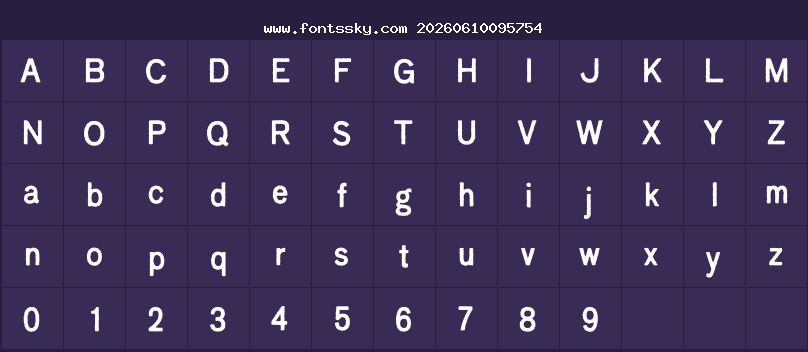
• Font Name: 寒蝉活黑体_復 ConBold
• Font ID: 1.000;UKWN;ChillHuoGothic_F_ConBold
• Full Font Name: 寒蝉活黑体_復 ConBold
• Version: Version 1.000;Glyphs 3.1.1 (3135)
• PostScript Name: ChillHuoGothic_F_ConBold
• Character Count: 19045
• Designer: Warren2060
• Manufacturer: ChillType
• Description: 基于源石黑体(GenSekiGothicJP)& ShipporiAntique的改变。
About 寒蝉活黑体_復 ConBold.otf
寒蝉活黑体_復 ConBold.otf is a modern, elegant sans-serif font designed for ultimate readability and visual harmony. Perfect for branding, headlines, web design, and print materials.